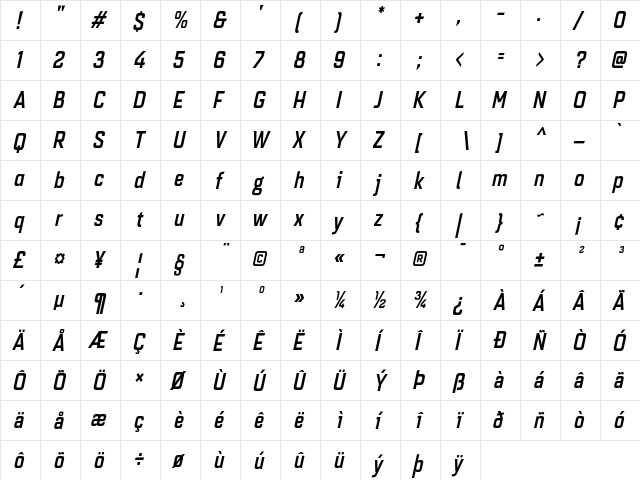
Quarca Cond Medium Italic
Design Context for Quarca Typeface
Quarca is a composed and adaptable typeface that performs quietly and consistently across a wide range of design contexts. Its italic angle brings a sense of urgency and motion to the letterforms. Its narrow stance lets it pack a punch even in space-constrained designs.
Pro Tip: Use Quarca for emphasis, pull quotes, and subheadings where its slanted energy can add rhythm to the layout.